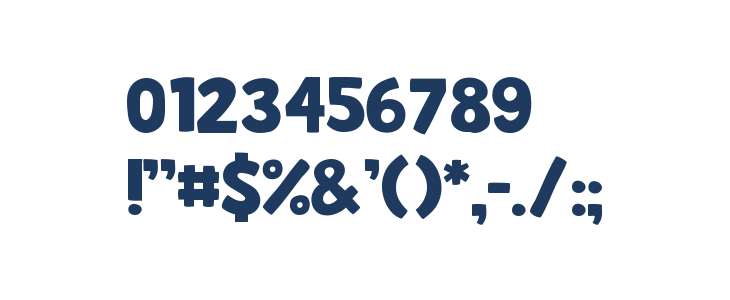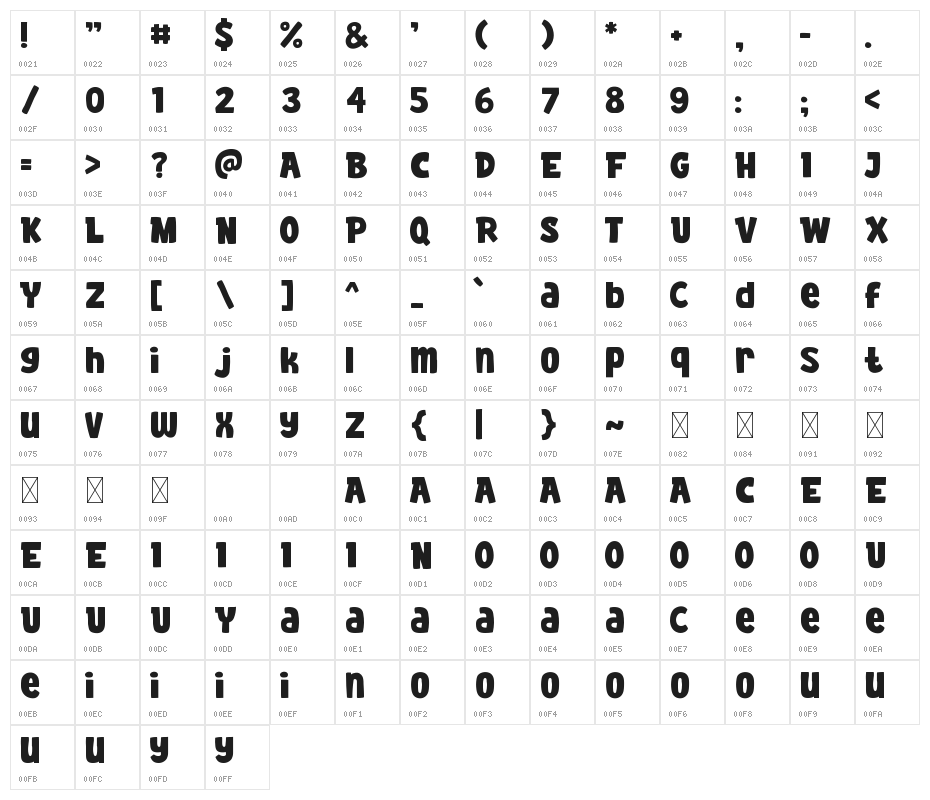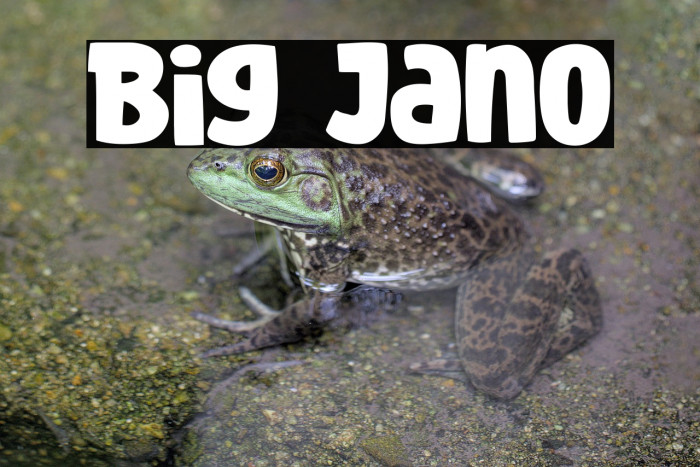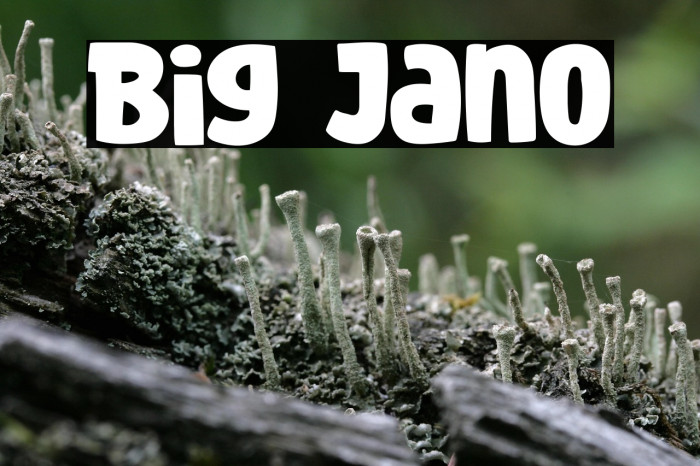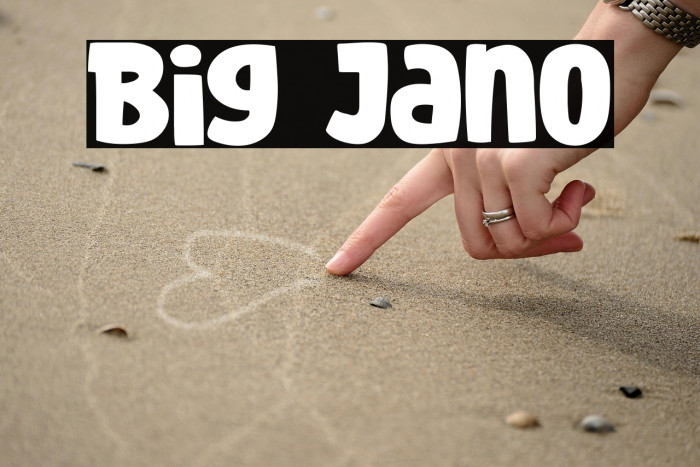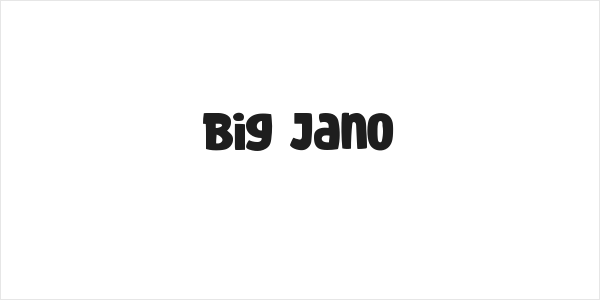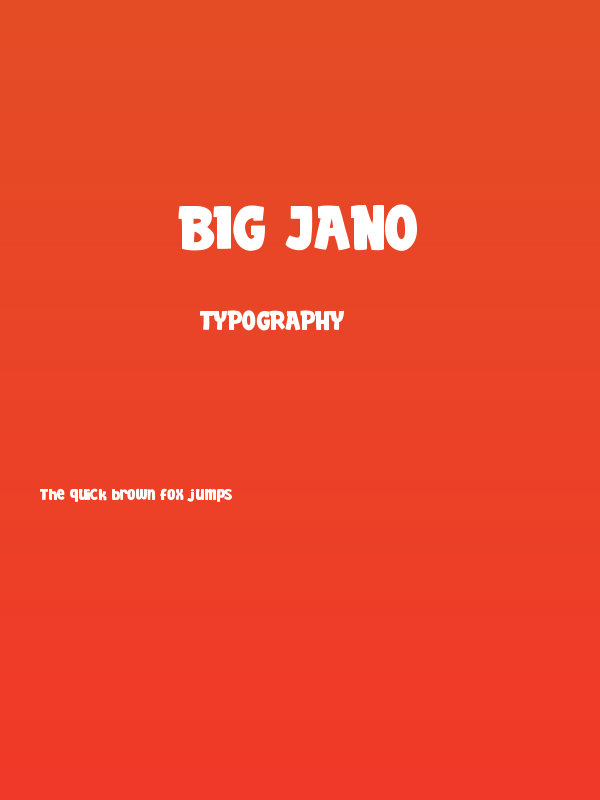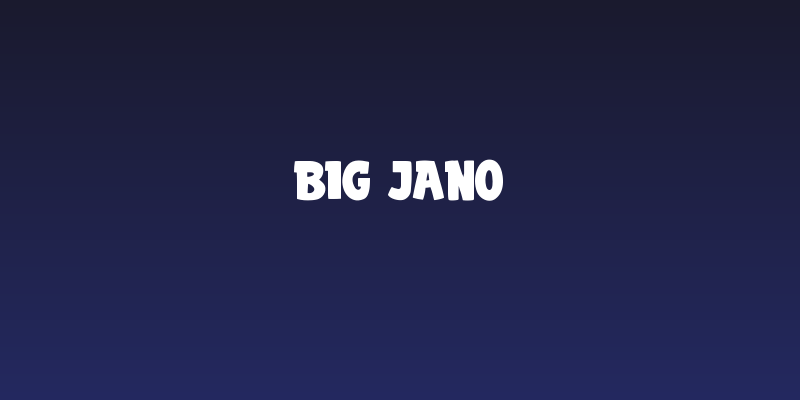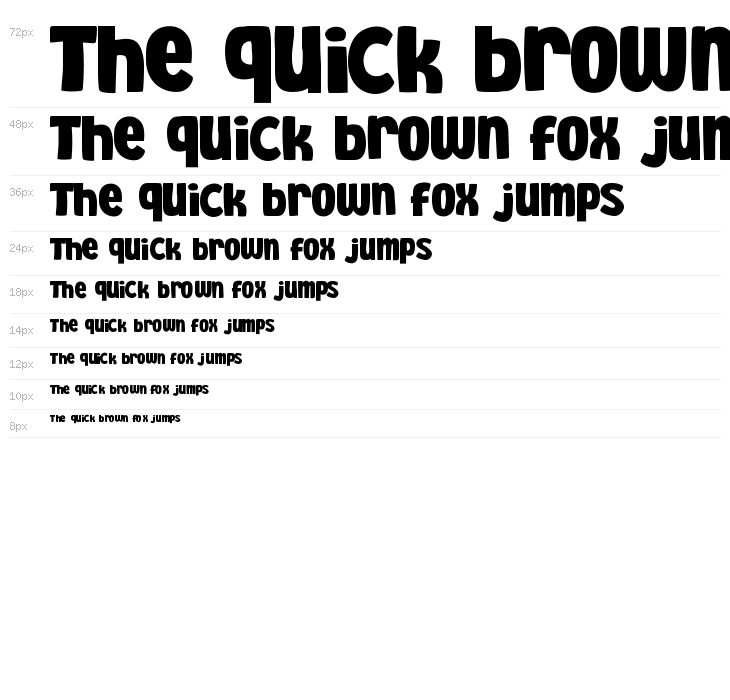
Big Jano Font
Big Jano Description
This font features a bold and playful design with thick, rounded strokes that give it a friendly and approachable appearance. The characters are slightly condensed, enhancing readability while maintaining a strong visual impact. The uppercase and lowercase letters are well-balanced, with a consistent stroke width that adds to the cohesive look. The numerals and special characters are designed to match the overall style, making them suitable for a variety of uses. This font's unique style makes it ideal for projects that require a fun and engaging typeface.
| Proposed Projects | Ideal for children's books, playful branding, posters, and social media graphics. |